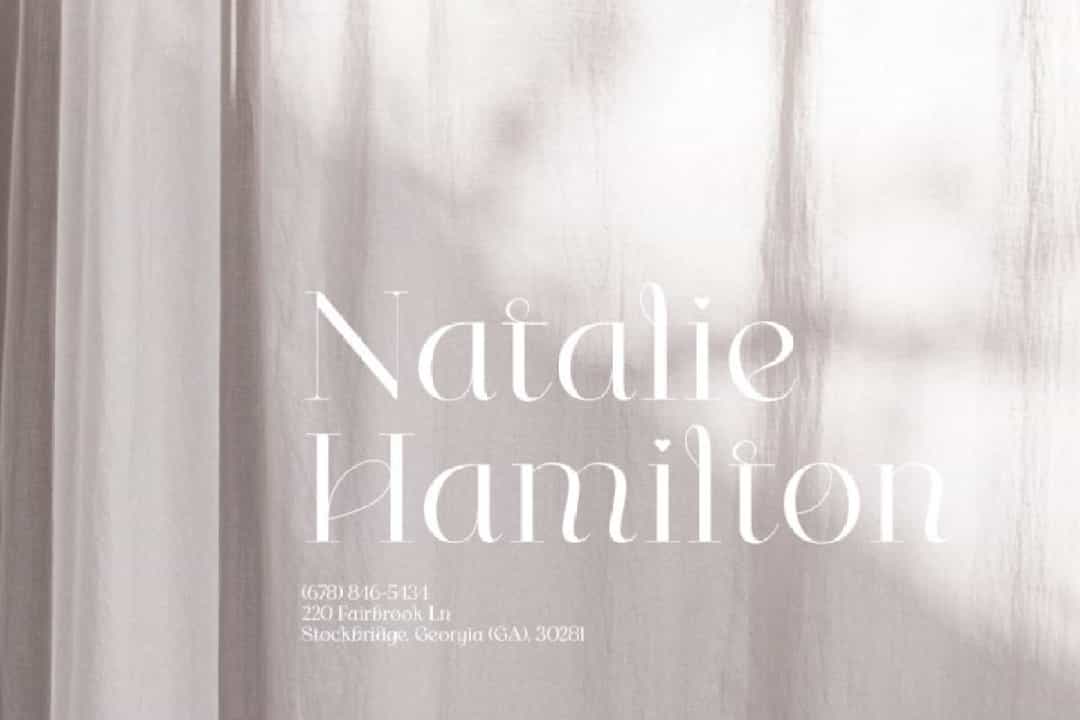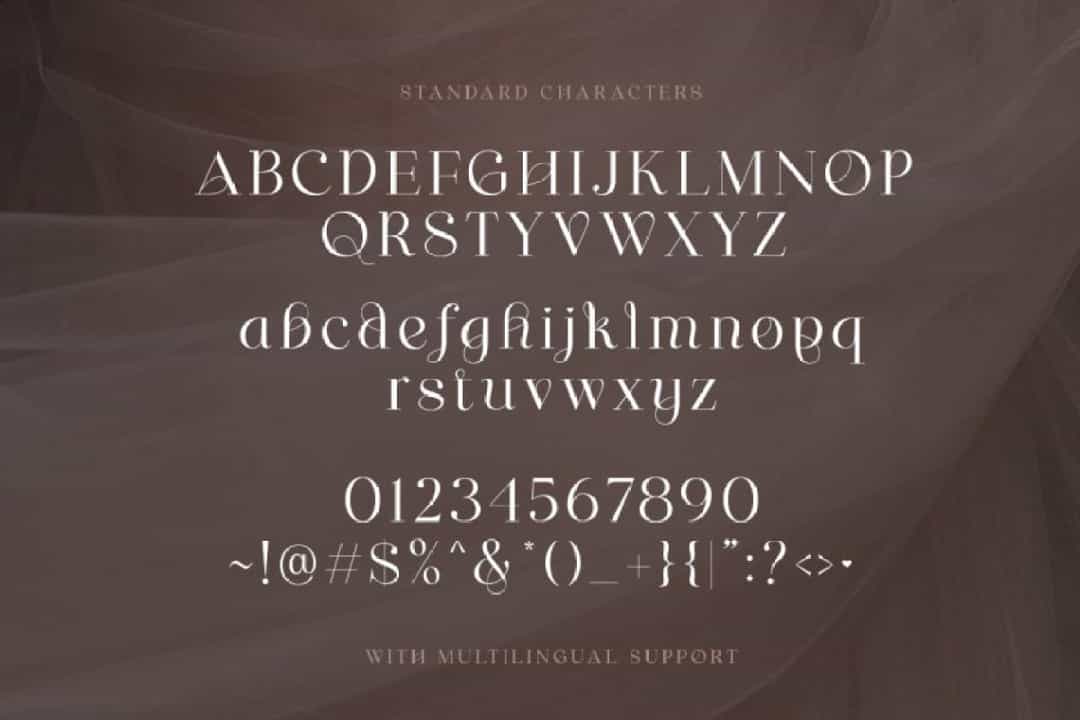
Shaping Heartis an elegant and contemporary serif font with subtle designs that will elevate any presentation, logo or wedding invitations aesthetically and beautifully! Perfect for presentations, logos or invitations as well as branding your business! Use it for wedding invites or your own brand!